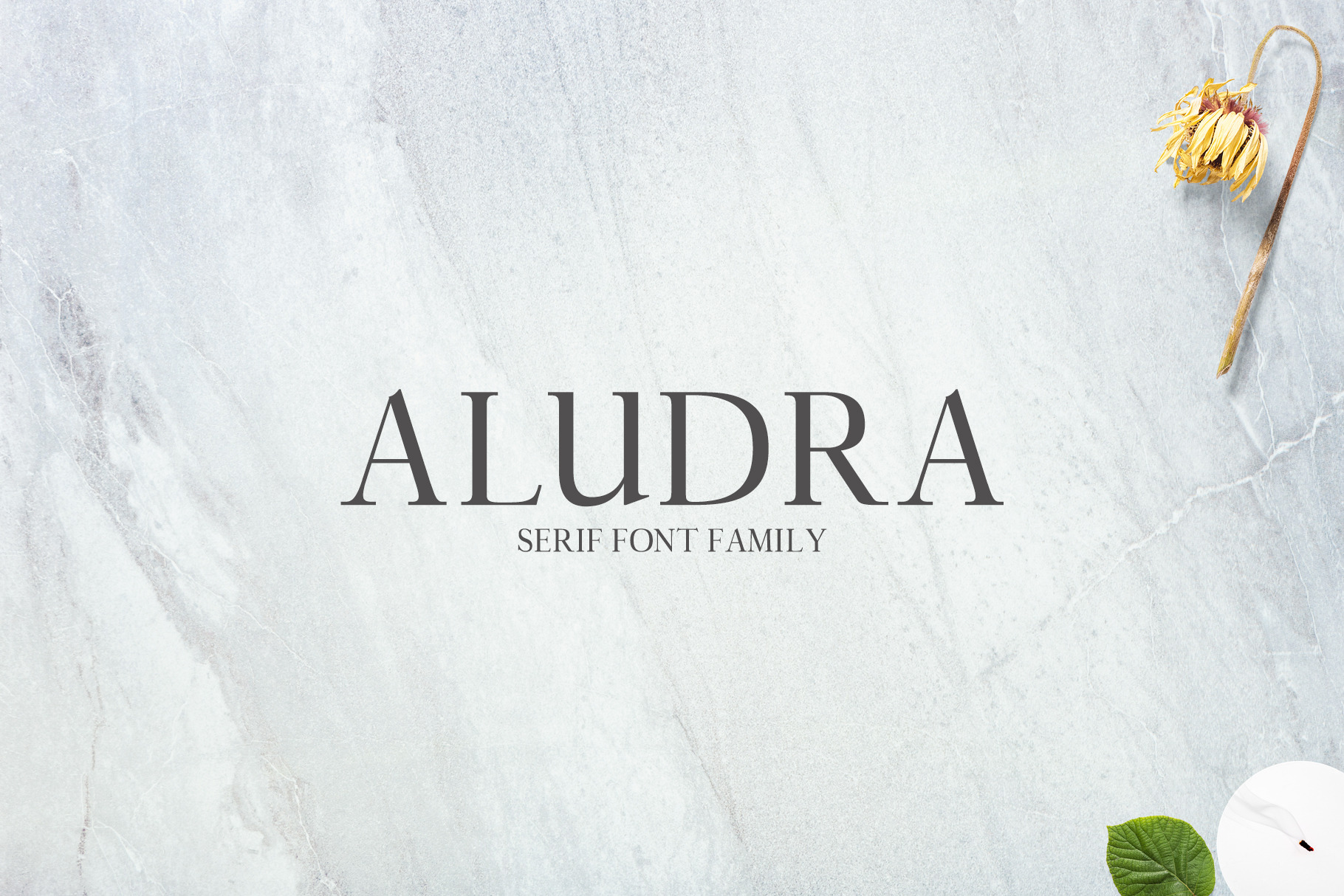
Aludra Serif 12 Font Family Pack
Aludra Serif Typeface is a beautiful set of display fonts. Aludra family contains 11 weights, from Light to Bold. Aludra is great for headlines, posters, branding, packaging, presentations, short texts.
- New Update • Aludra Serif Typeface has now been updated and added Italics 6 Italic styles
- Serif Typeface
- Regular, Light, Thin, Bold, Black, Distorted, Extra Bold & Italic Weights
- 250 glyphs
- Uppercase Multilingual Letters
- Lowercase Multilingual Letters
- Non English Characters ( Latin Supplement + Latin Extended A)